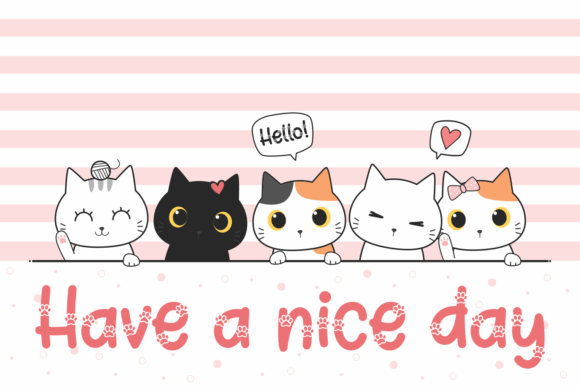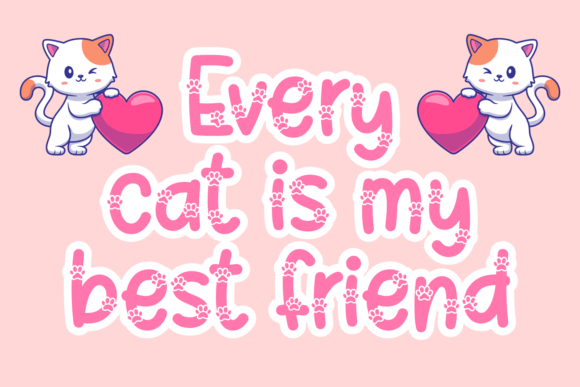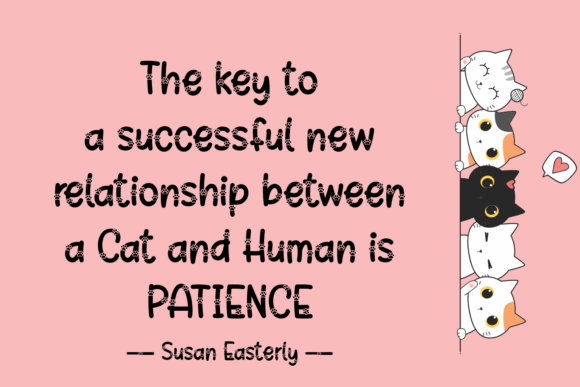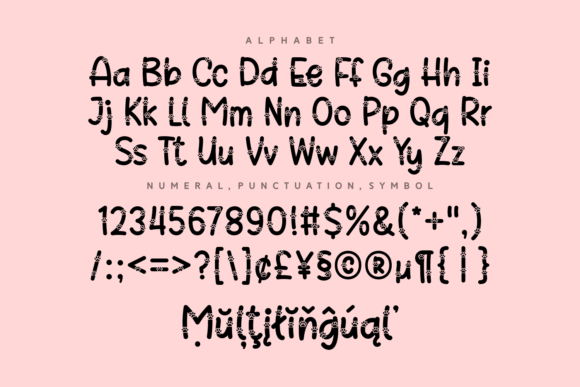
Introduction to Kitty Sign Font
Kitty Sign is an adorable cat-themed decorative font.
With little paws embellishing the characters, this typeface will add extra cuteness to any design project This font is PUA encoded, so you can easily access all the cute glyphs.